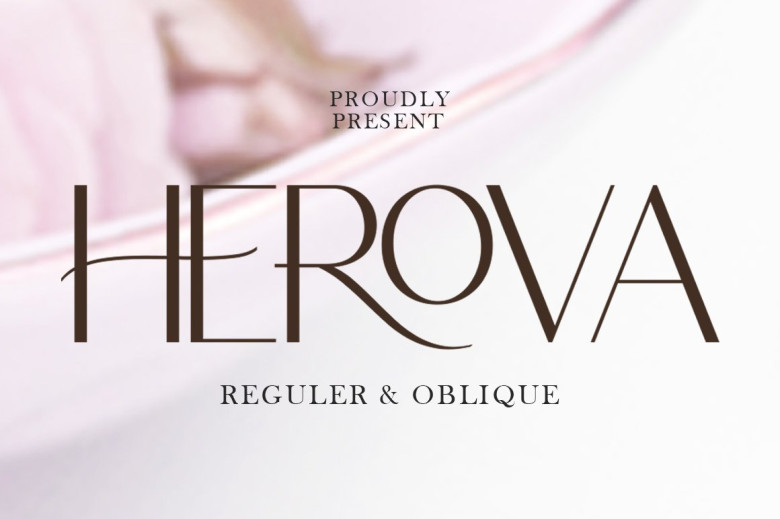
Herova Font
HEROVA is a cool sans serif font with a unique design. The usual sans, combined with the silhouette and an obvious bulb, embodies the bulb. Suitable for web pages logos, ridges, high contrast logos, and a sinewy form, and light ridges are perfectly tailored to the logo, perfect for design and love, water logos & social design, branding projects, CDs & Packaging, magazines distraught font headings, advertisements.
Herova Sans Serif Font